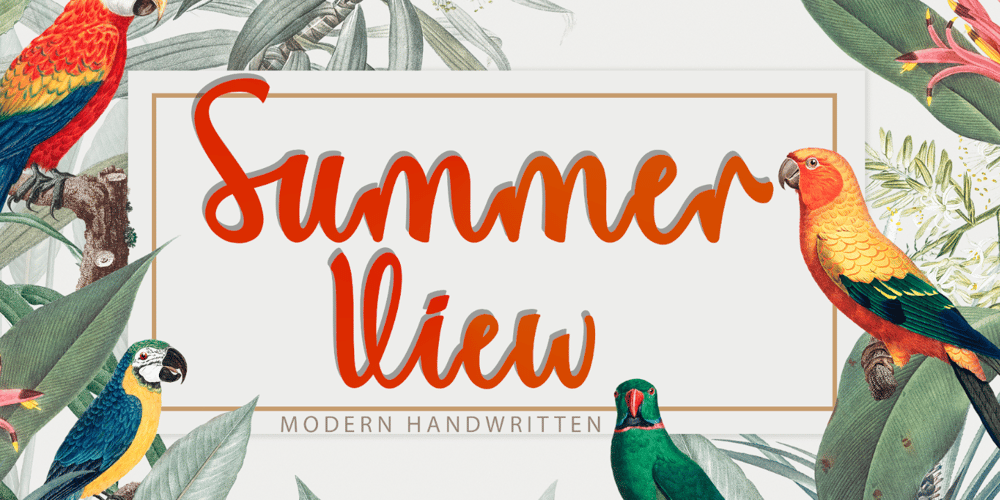
Summer View Font Family was designed by Isroni Yoga Prasetya and published by Yoga Letter. Summer View contains 1 styles and family package options. “Summer View” is a beautiful and elegant handwritten font. This font is equipped with uppercase, lowercase, numerals, punctuation, swashes, titlings, alternates, ligatures, and multilingual support. It is very suitable for weddings, engagements, Christmas, Valentine’s, winter, autumn, summer, and others.